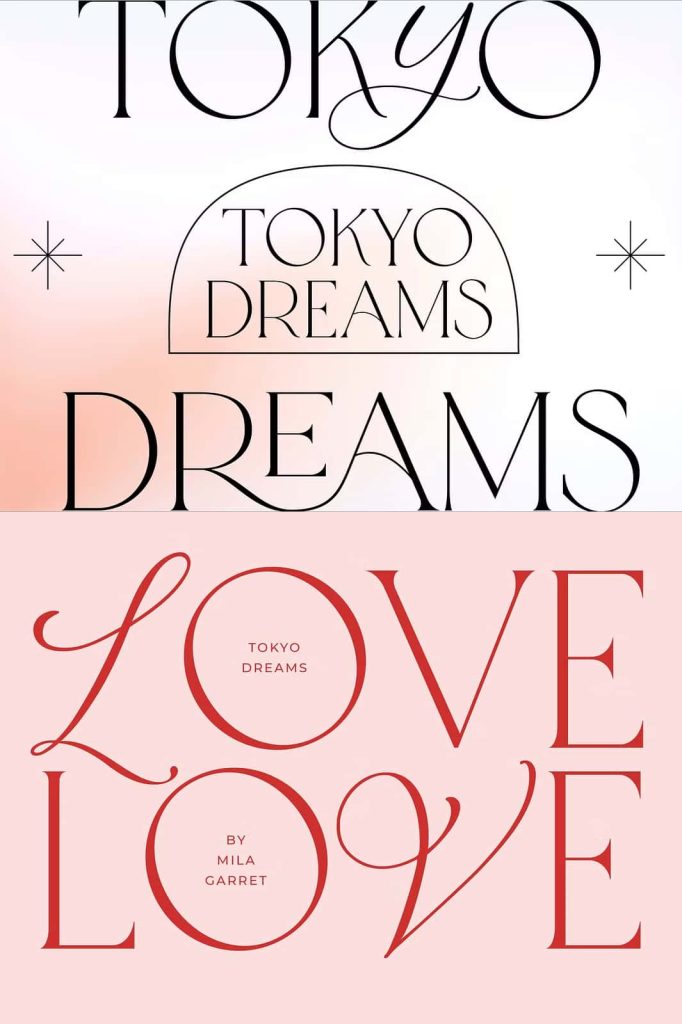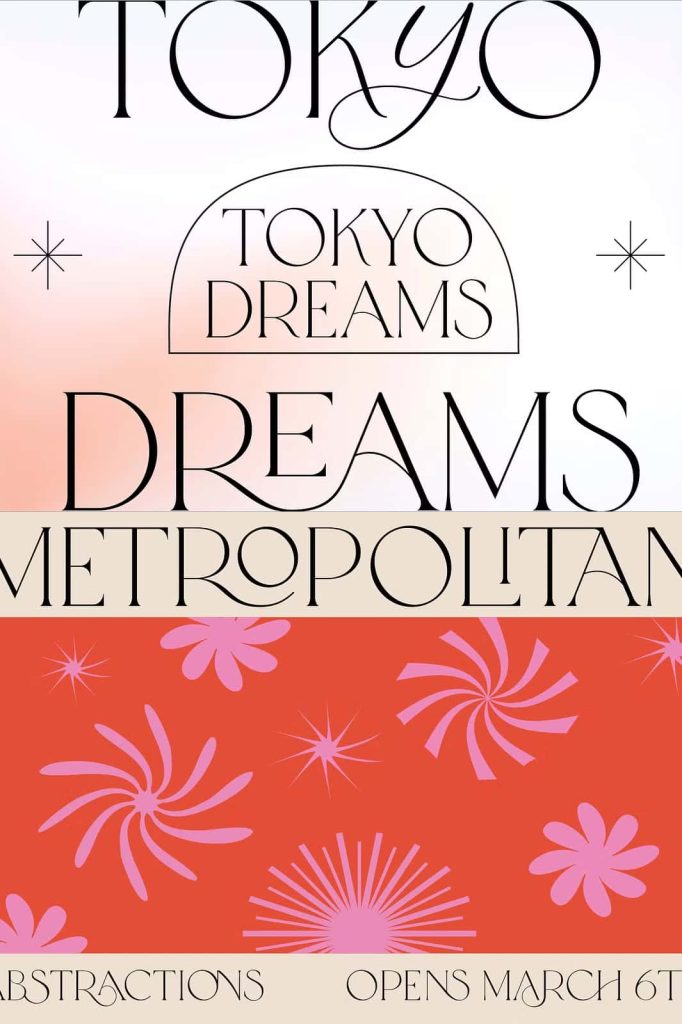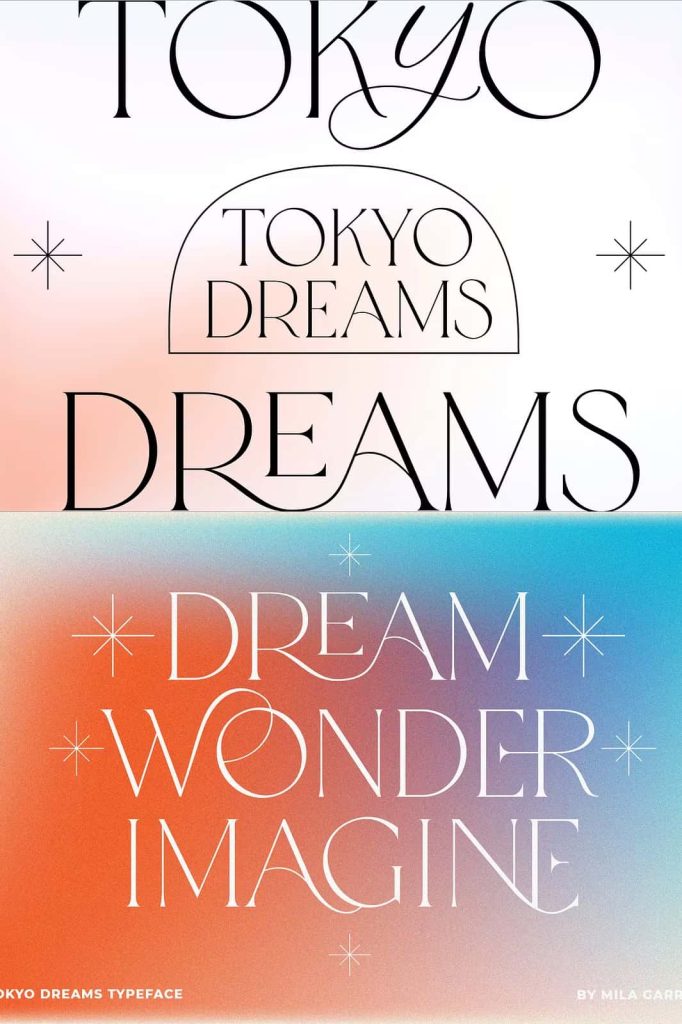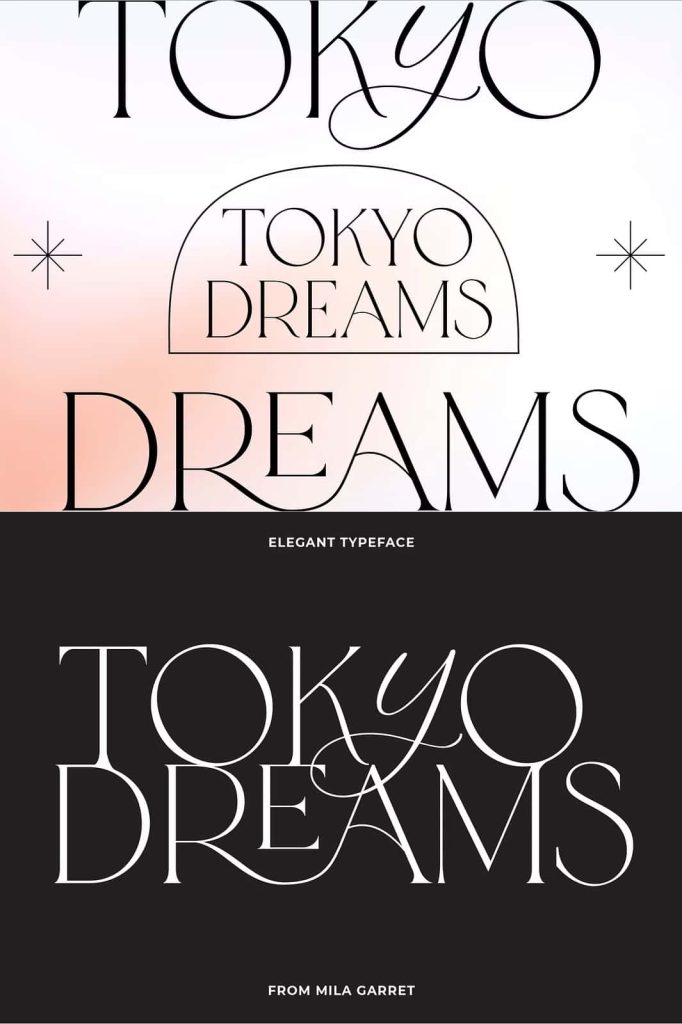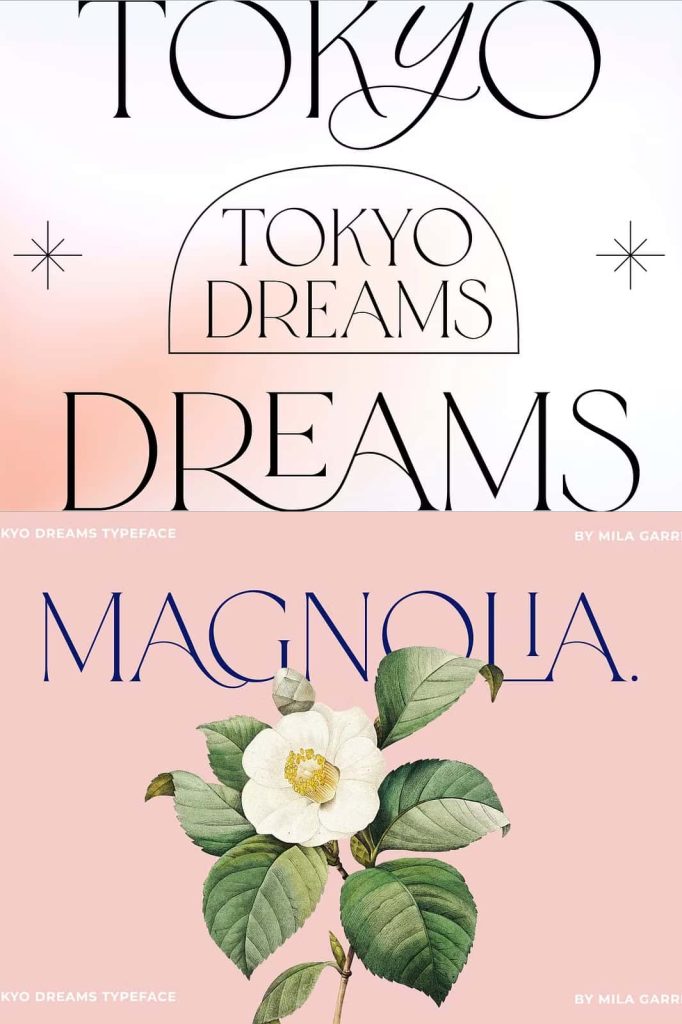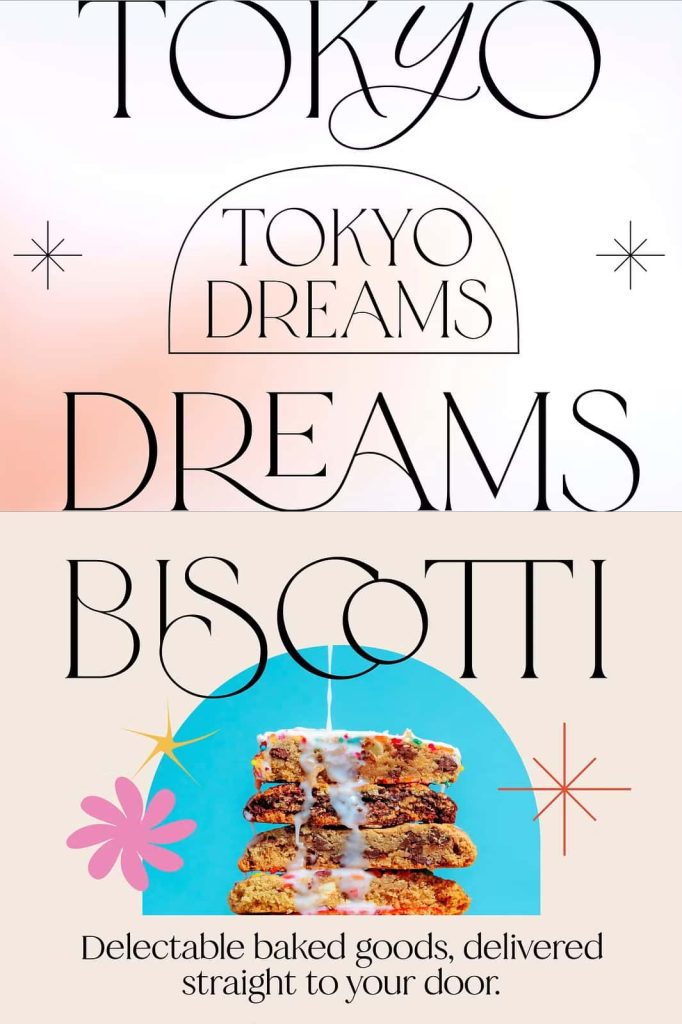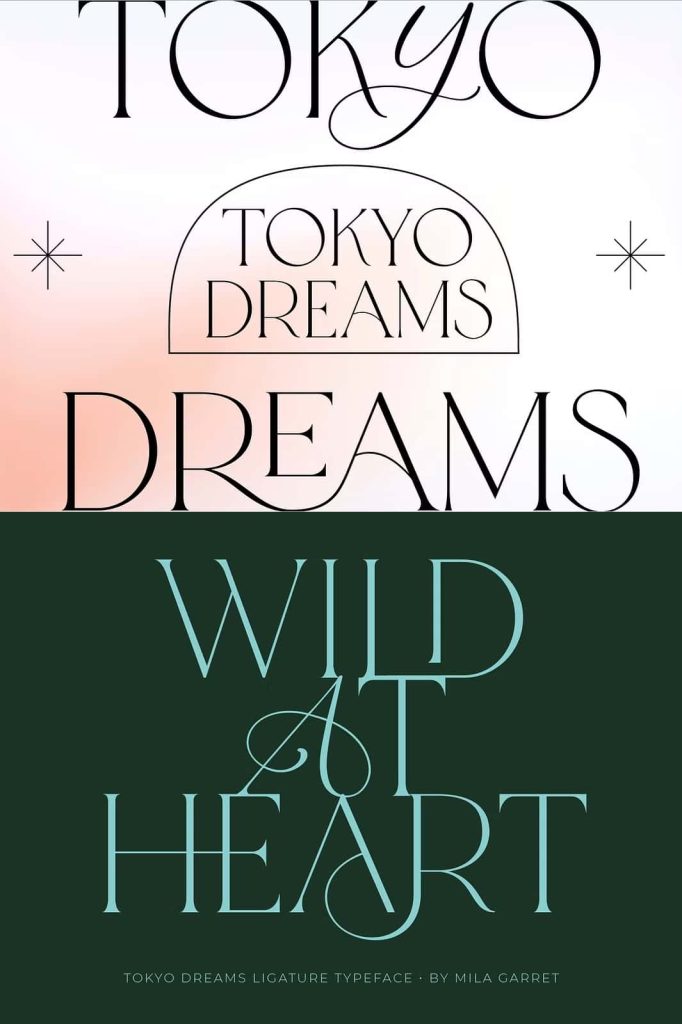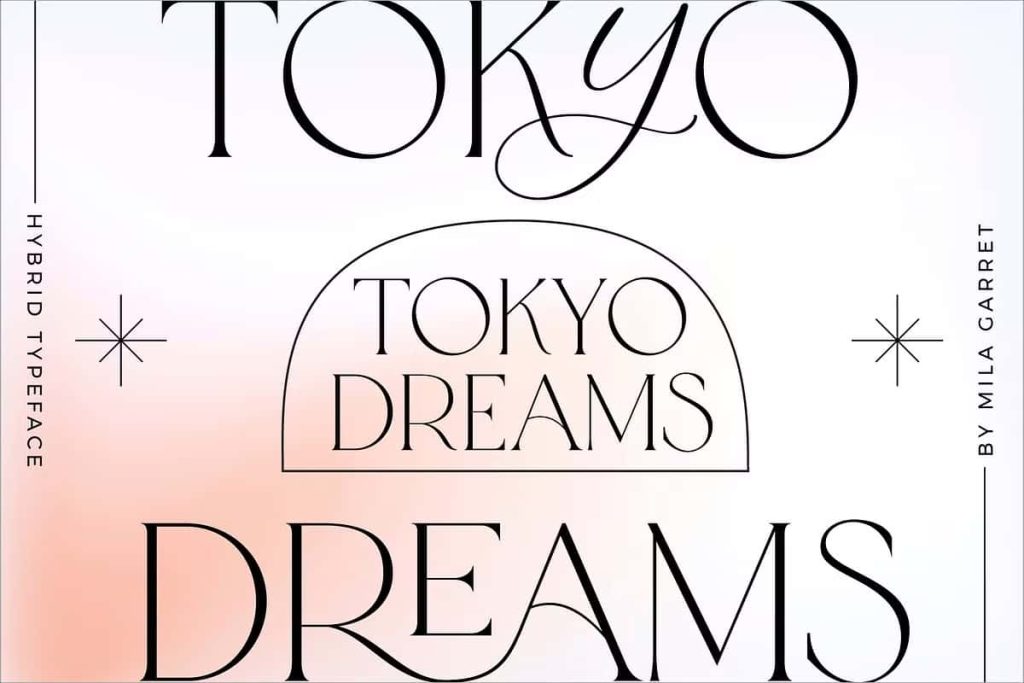
Tokyo Dreams Display Ligature SerifleastedJune 30, 2025Fonts Introducing Tokyo Dreams: A multi-faceted Serif Display typeface with three different styles Download